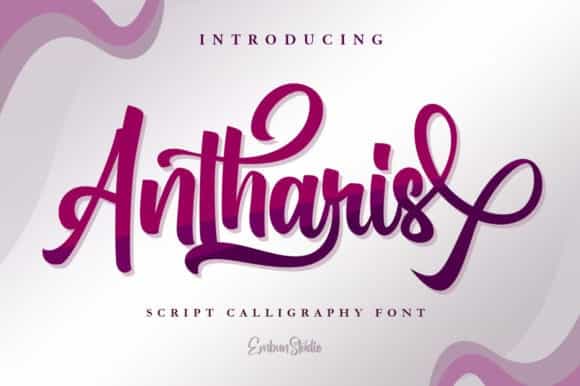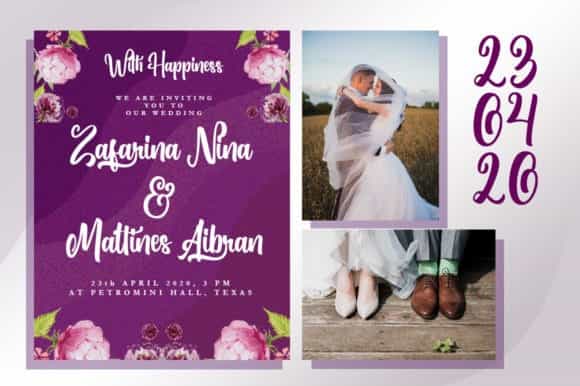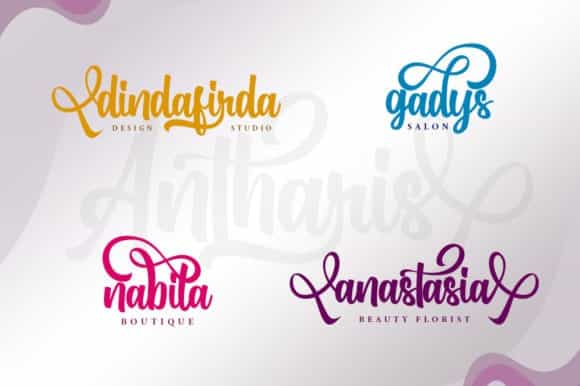
Antharis Font is a classy calligraphy script font. This is the perfect choice to make a stylish elegant statement or just add a bit of class to your designs. This script is full of the ligatures that you see in natural handwriting in its OpenType features – so it looks almost like handwritten.